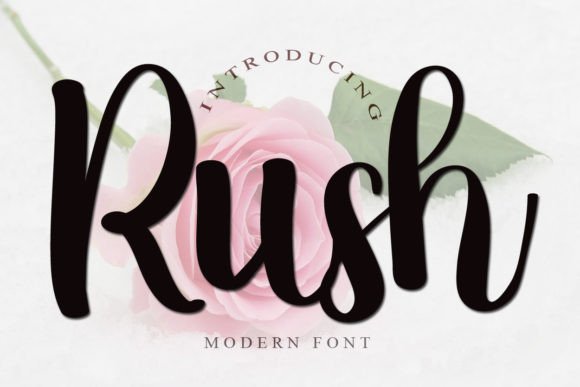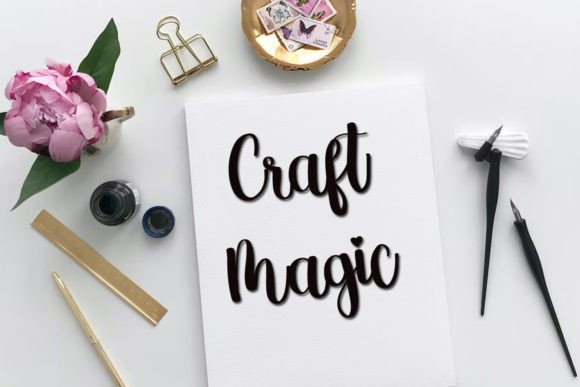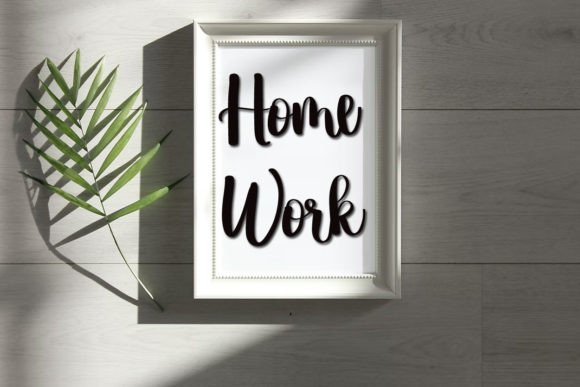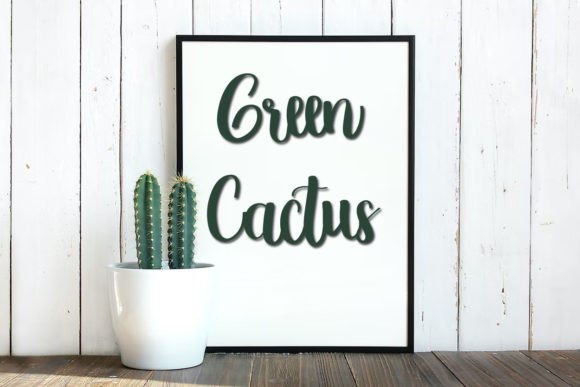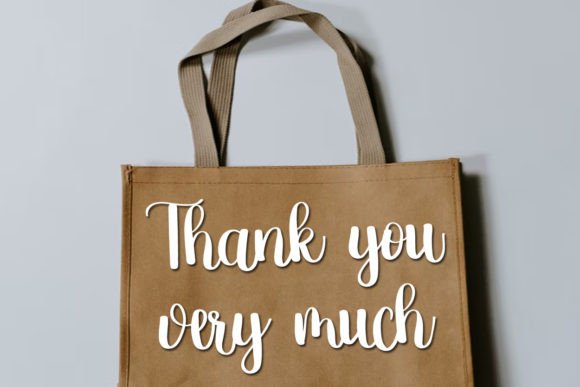
About Rush Font
“Rush” is not just a font; it’s a fresh and relaxed script typeface carefully designed to infuse a sense of ease and personalization into your designs. This versatile font is well-suited for a variety of creative applications, making it an excellent choice for projects that require a lovely and personalized touch.
The fresh and relaxed script style of “Rush” is a standout feature. The characters are crafted with a sense of informality and ease, making this font ideal for projects where a relaxed and friendly vibe is desired. Whether you’re working on YouTube banners, logos, wedding invitations, crafts, or any other creative endeavor, “Rush” adds a touch of freshness to your text.
The versatility of “Rush” makes it adaptable to different design contexts. Whether used in digital or print materials, this font seamlessly integrates into various projects, adding a personal and relaxed feel. Its ability to convey a sense of ease makes it particularly suitable for projects that need a friendly and approachable touch.
“Rush” becomes a valuable asset for creative projects aiming for a fresh and relaxed atmosphere. Its design elements contribute to the overall aesthetics of your designs, making it an ideal choice for those seeking a typeface that enhances the visual appeal of their projects with a touch of informality.
In summary, “Rush” is more than just a font; it’s a fresh and relaxed script typeface that brings a lovely and personalized touch to your designs. Embrace its versatility for YouTube banners, logos, wedding invitations, crafts, and more, confident that “Rush” will infuse your creations with a delightful and friendly aesthetic. Let it be the font that adds ease and personality to your design projects.